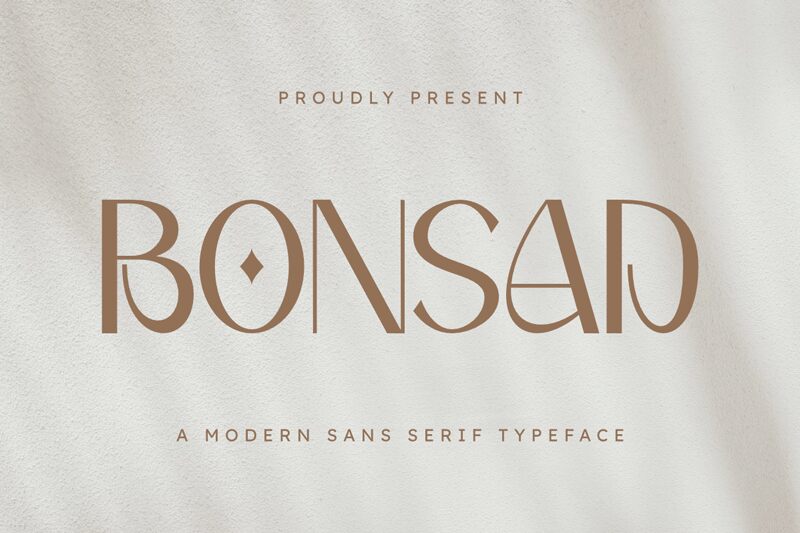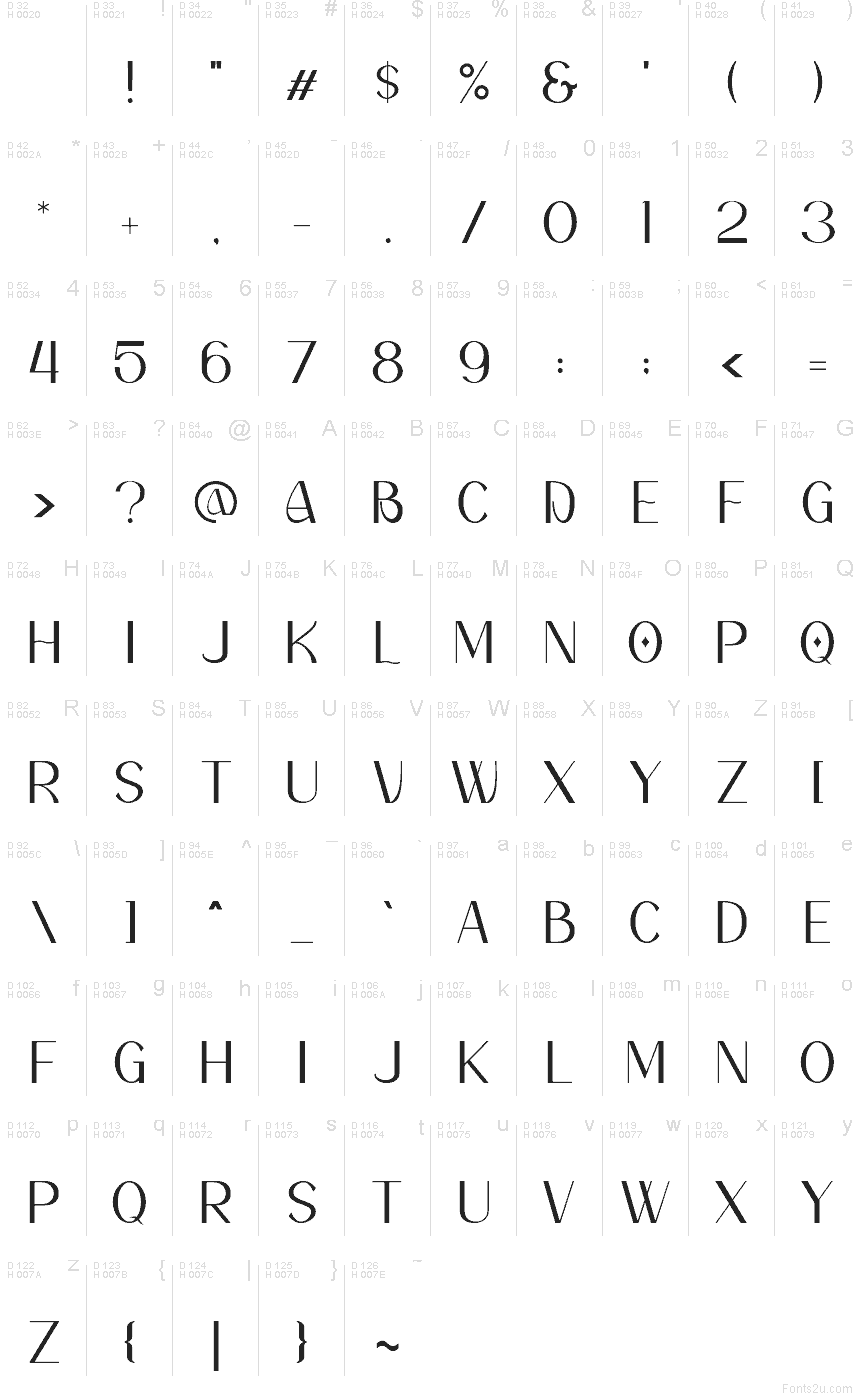
Bonsad Regular
Bonsad Regular font by Muhammad Yafinuha of Masyasfi Studio is a free elegant serif typeface with a striking, couture attitude. The Bonsad family stretches its letters tall and lean, with sharply cut curves and narrow counters that feel like they’ve been carved with a blade. It has a refined, glossy quality—like ink pulled with just enough pressure—so even a single word set large feels like a logo.
Using Bonsad Regular, your titles snap into focus on fashion branding, magazine covers, editorial posters, cosmetic packaging, striking logos, and polished social media graphics. This free font thrives at big sizes where its slim details can breathe, and it pairs smoothly with a simple geometric sans for body copy to keep layouts clean and confident.